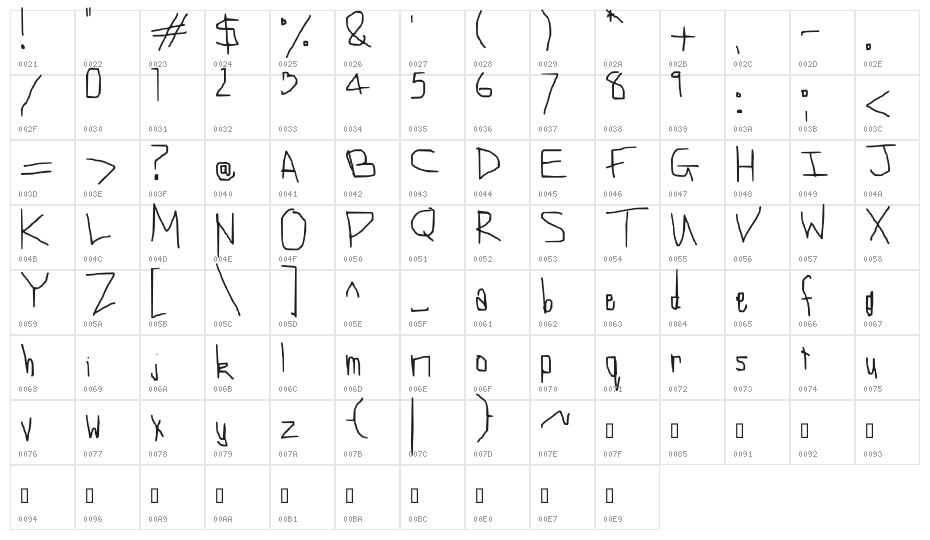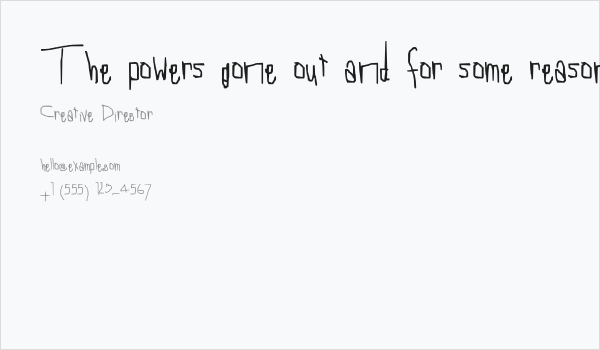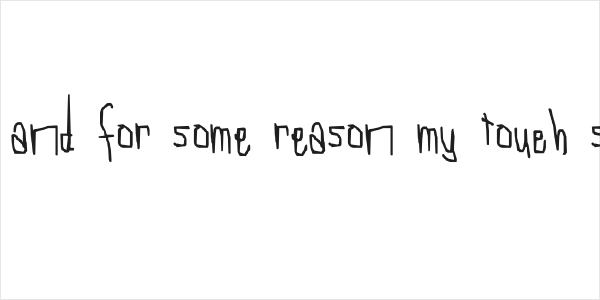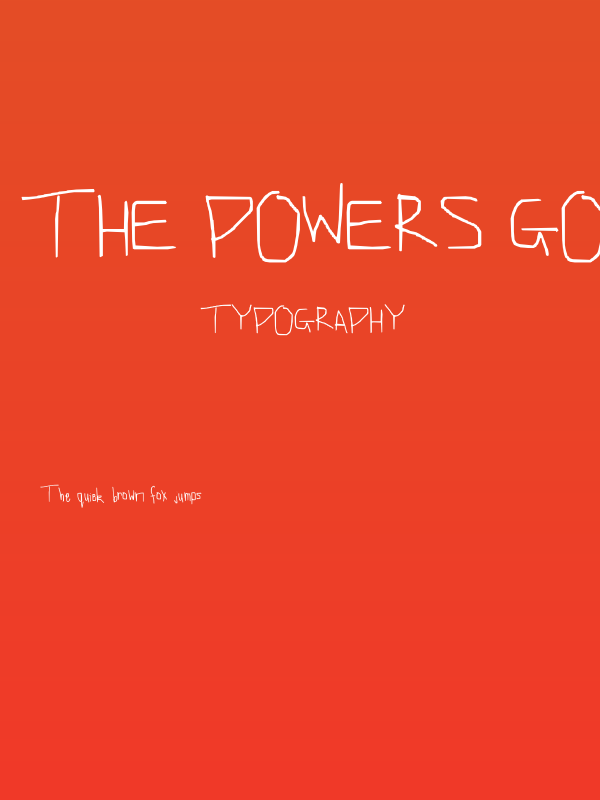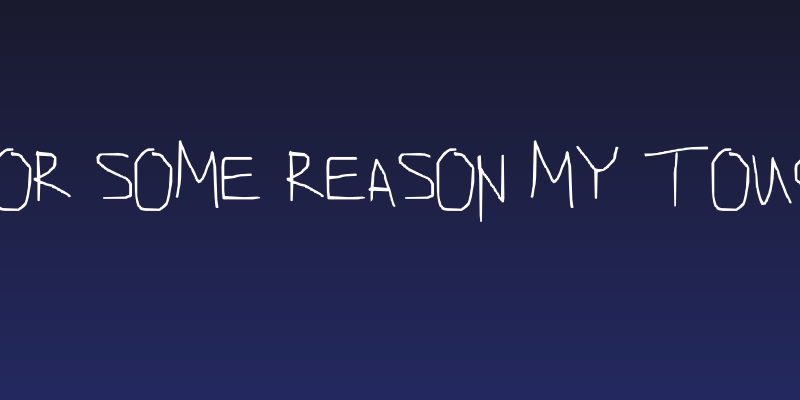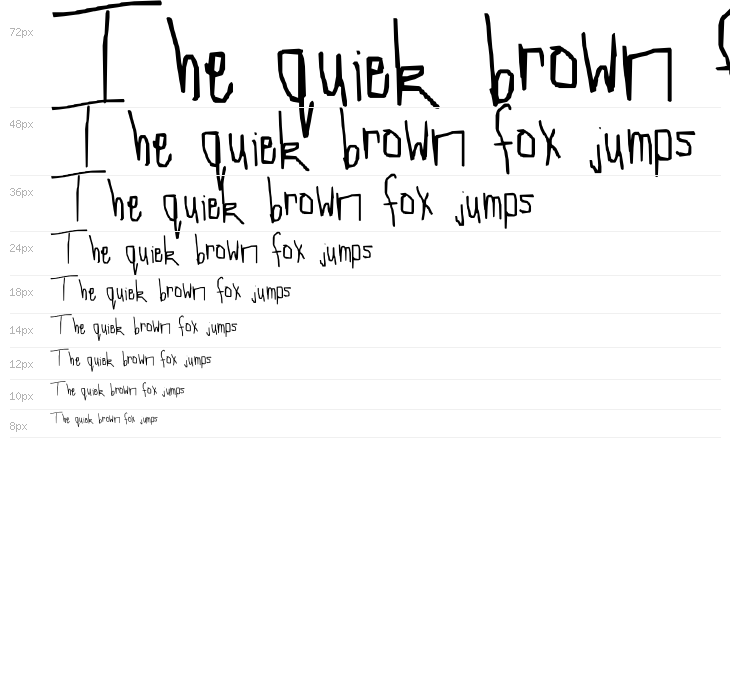
The powers gone out and for some reason my touch screen refuses to work Font
The powers gone out and for some reason my touch screen refuses to work Description
This font features a hand-drawn, casual style that gives off an informal and playful vibe. The uppercase letters are slightly uneven, with a sketch-like quality that suggests spontaneity and creativity. The lowercase letters maintain this informal style, with varying heights and widths that add to the font's charm. Numbers are bold and distinct, matching the overall quirky aesthetic. Special characters are creatively rendered, maintaining the hand-drawn theme. This font's unique character makes it stand out, perfect for projects that require a personal touch.
| Use Case | Headlines, Informal Text, Creative Projects |
| Proposed Projects | Ideal for children's books, creative posters, casual invitations, and personal projects that require a unique, hand-crafted look. |